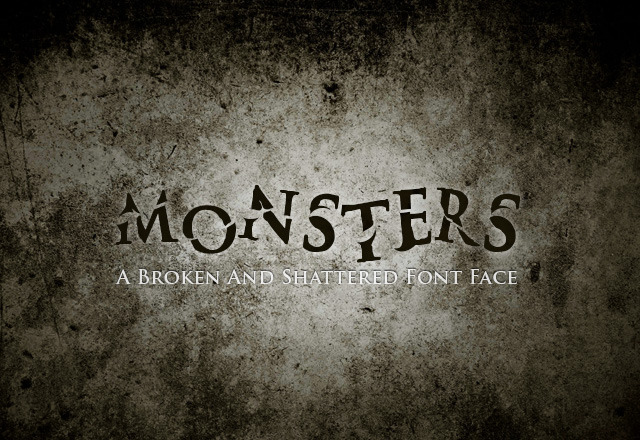
Monsters Font
Monsters is a broken style font face. Its somewhat-scary style is perfect for book covers, album designs, or movie posters. The letters are random sizes and tilted at different angles, which results in words that seem scattered and hand placed.
This font includes hundreds of characters including uppercase, lower case, numbers, symbols, and a few (though not all) international accents.